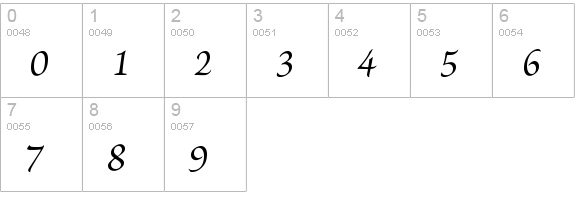
Brioso Pro Medium Italic is a balanced, medium-weight, italic variant in the Brioso typeface family \xE2\x80\x94 well suited to sub-headlines, navigation, and balanced editorial work.
Brioso Pro Medium Italic font exudes elegance and sophistication with its graceful curves and stylish angles. The italic design adds a touch of flair and dynamism to any text, making it perfect for conveying a sense of energy and movement. The medium weight strikes a balance between being bold and subtle, making it versatile for a wide range of design projects. And the best part? Brioso Pro Medium Italic font is completely free to download at FontsMarket.com! Experience the beauty and versatility of this font without any cost, and elevate your designs with this stunning typeface. Whether you're working on branding, editorial design, or any other creative project, Brioso Pro Medium Italic font is sure to make a statement and leave a lasting impression. Download it today and unleash your creativity with this exquisite font.